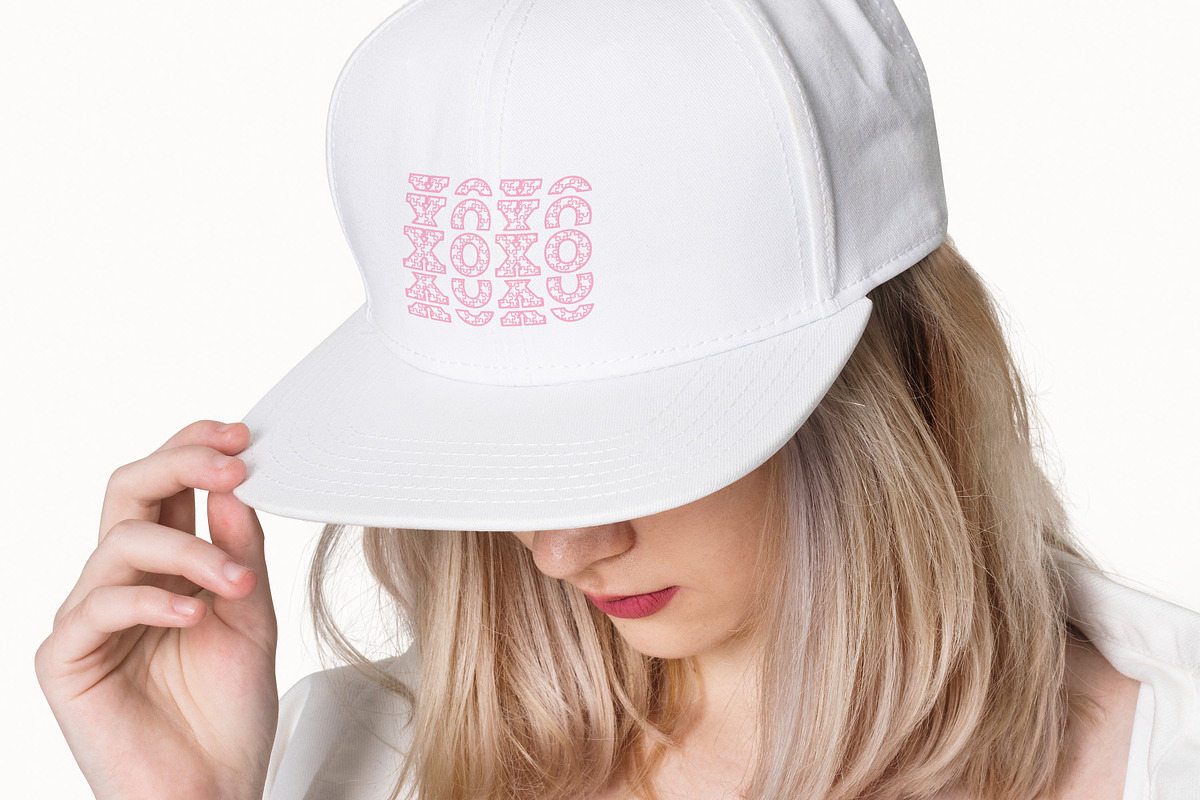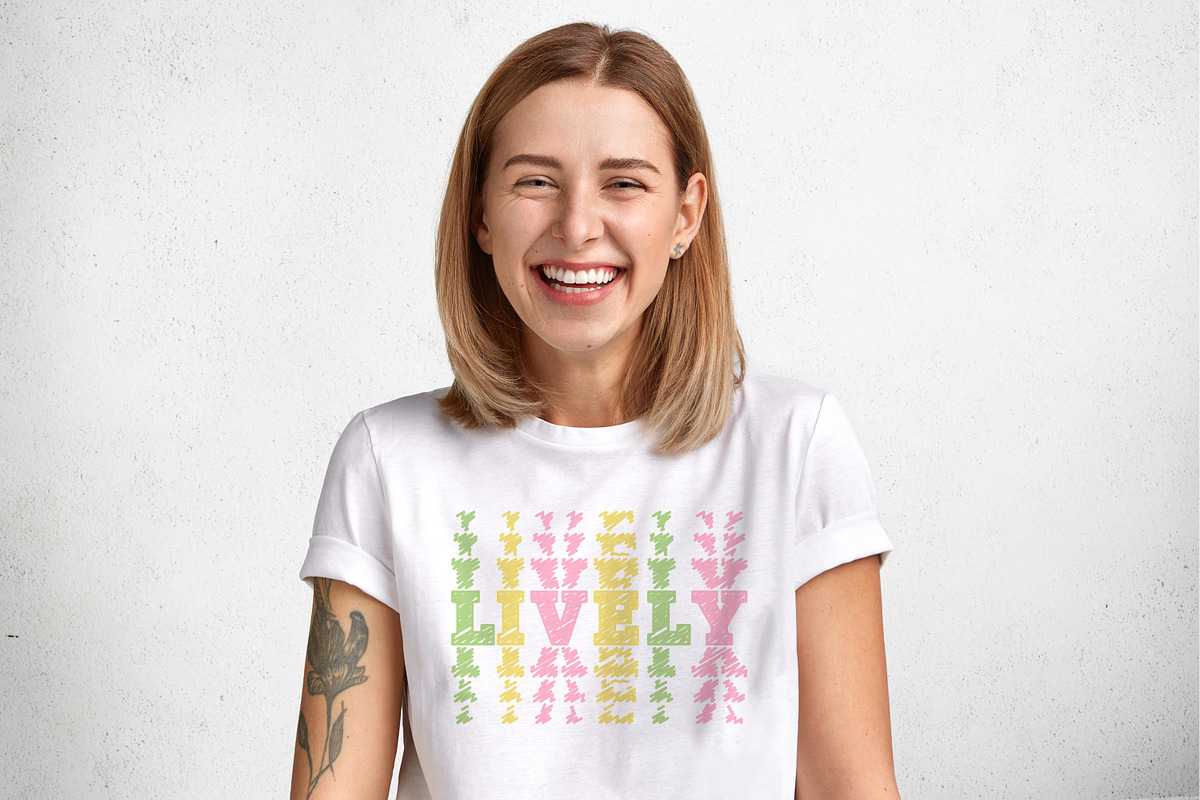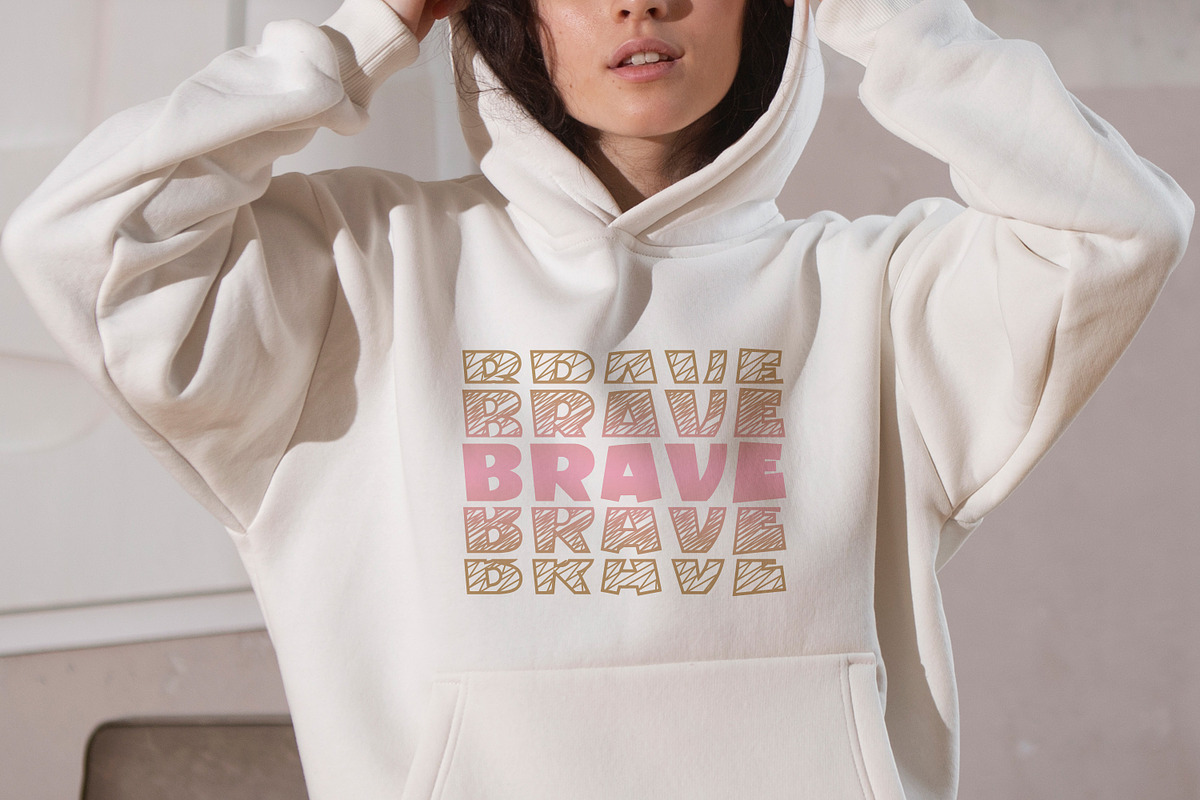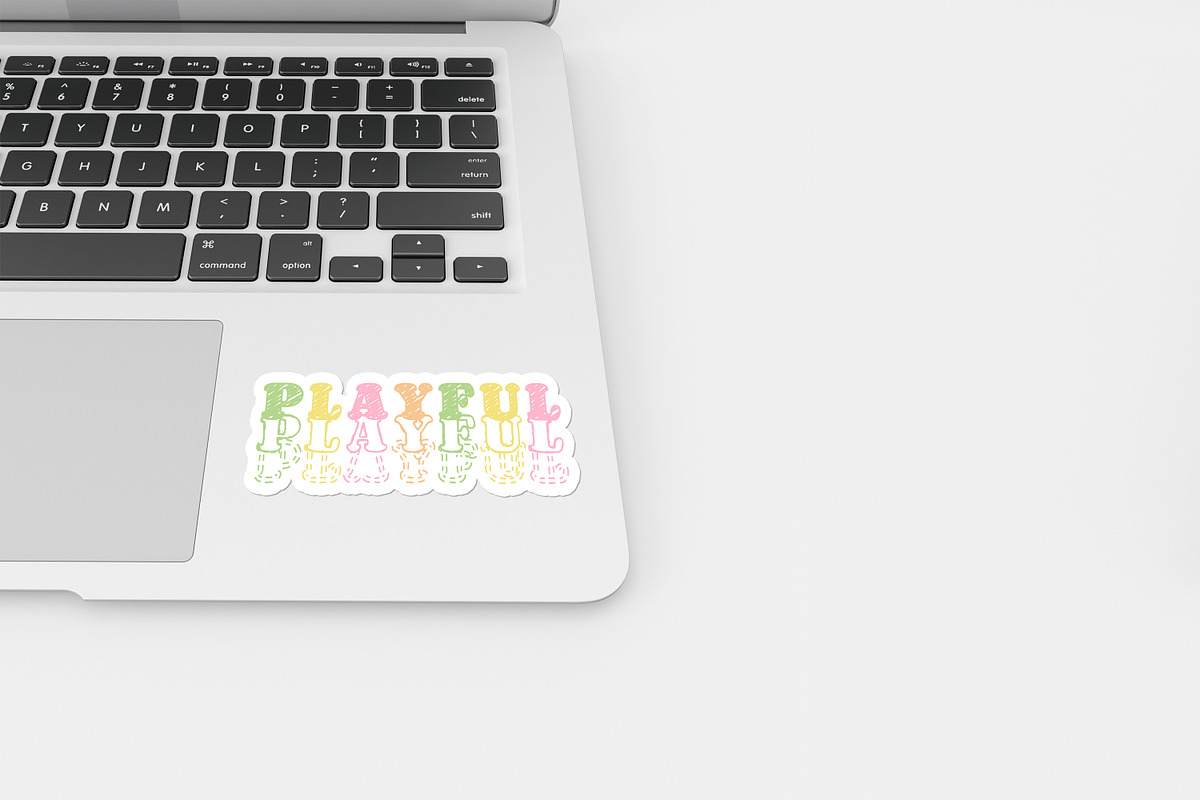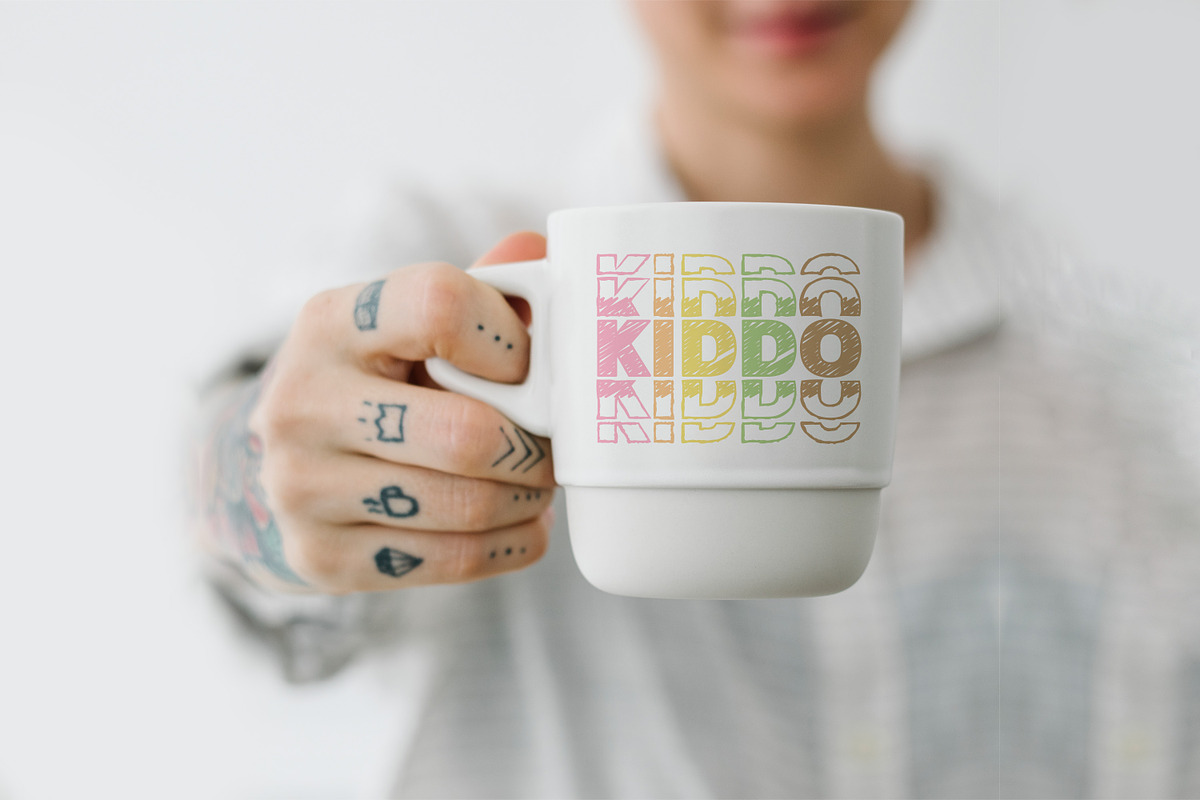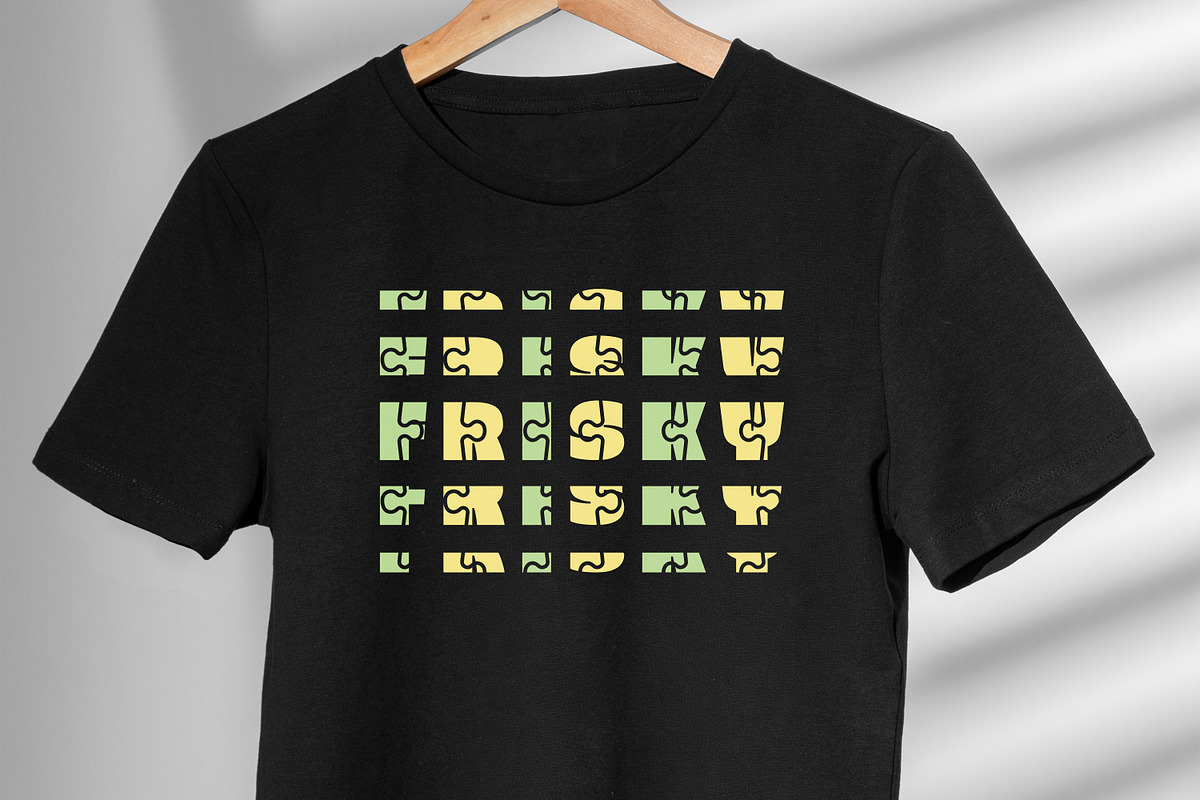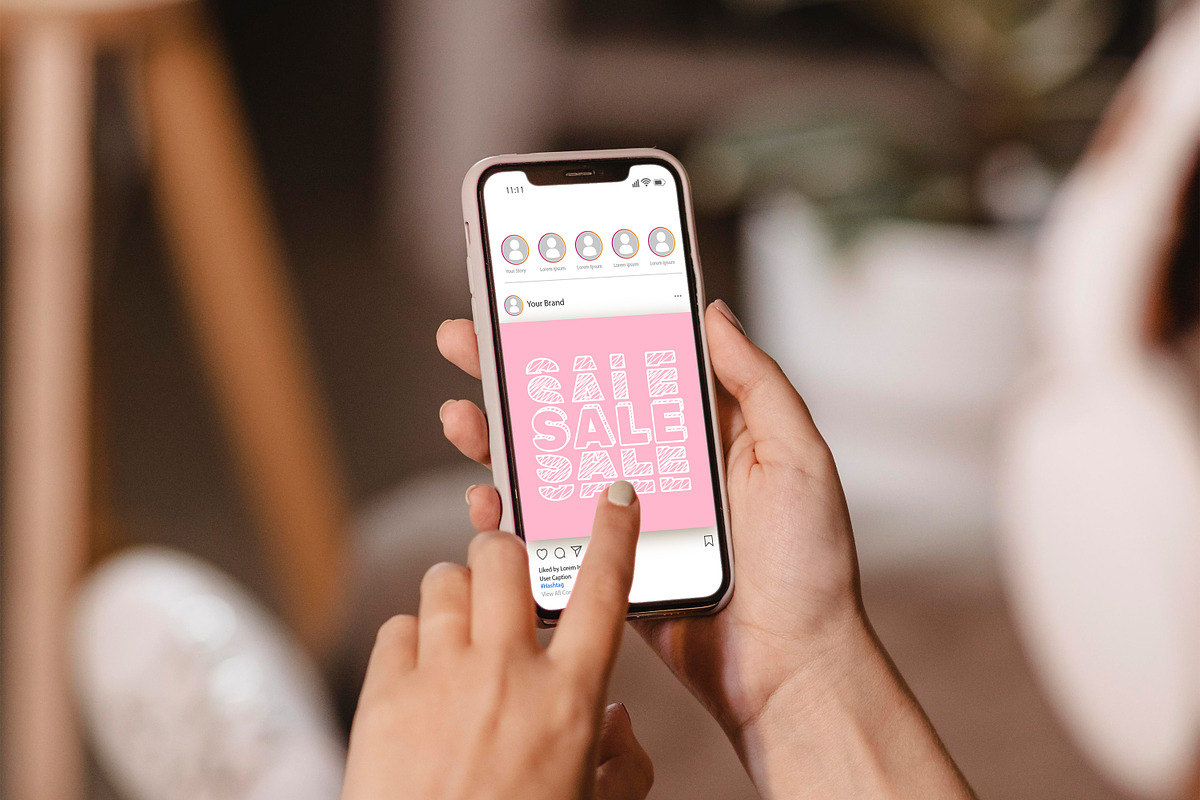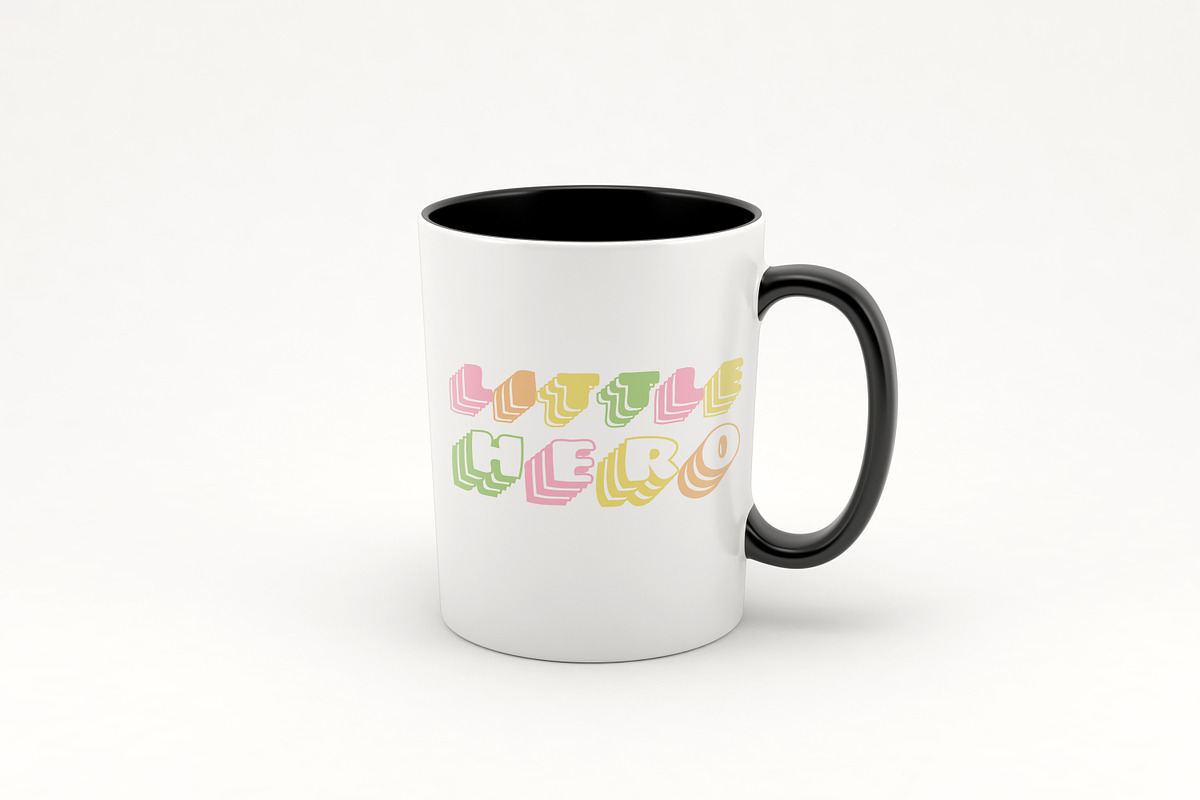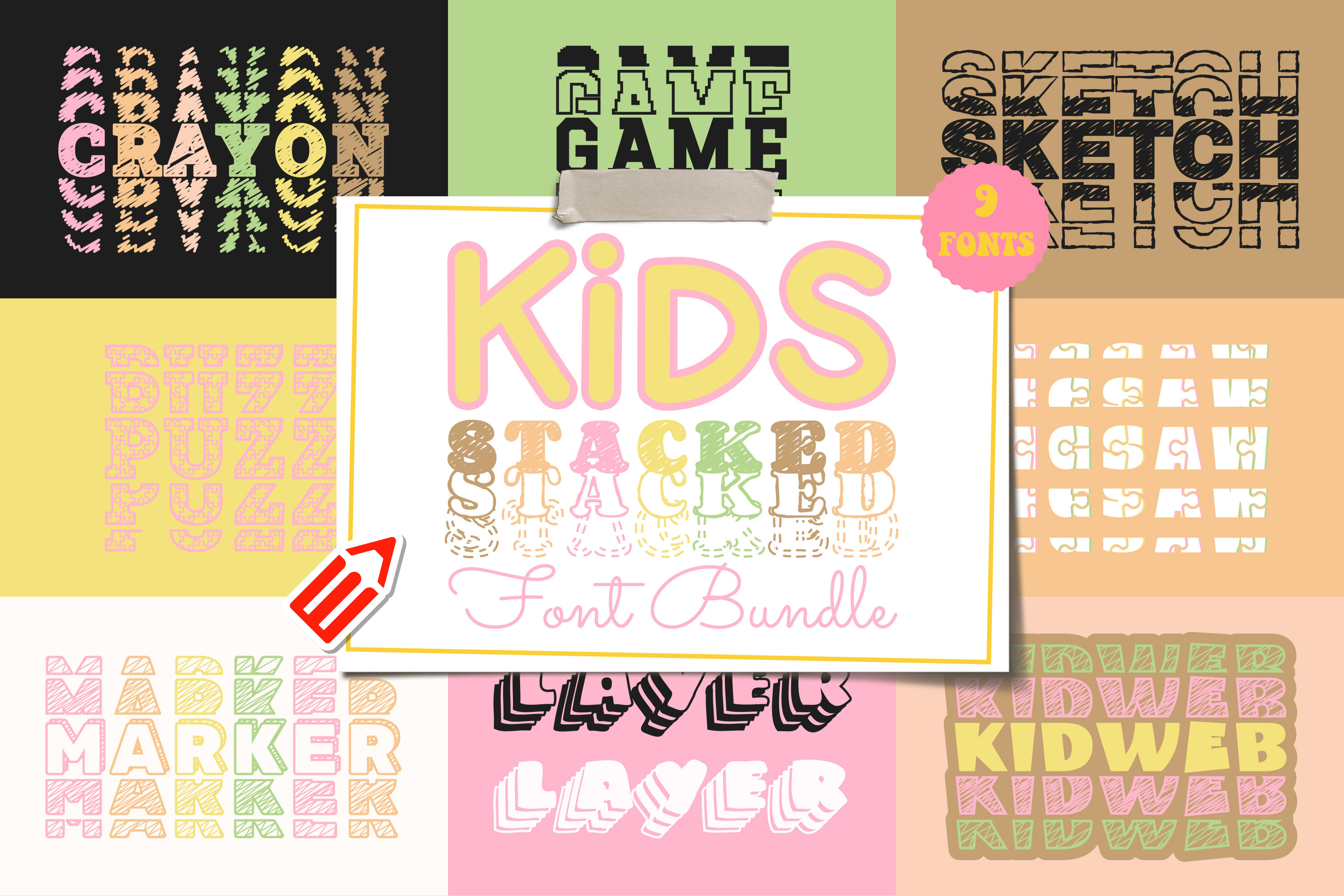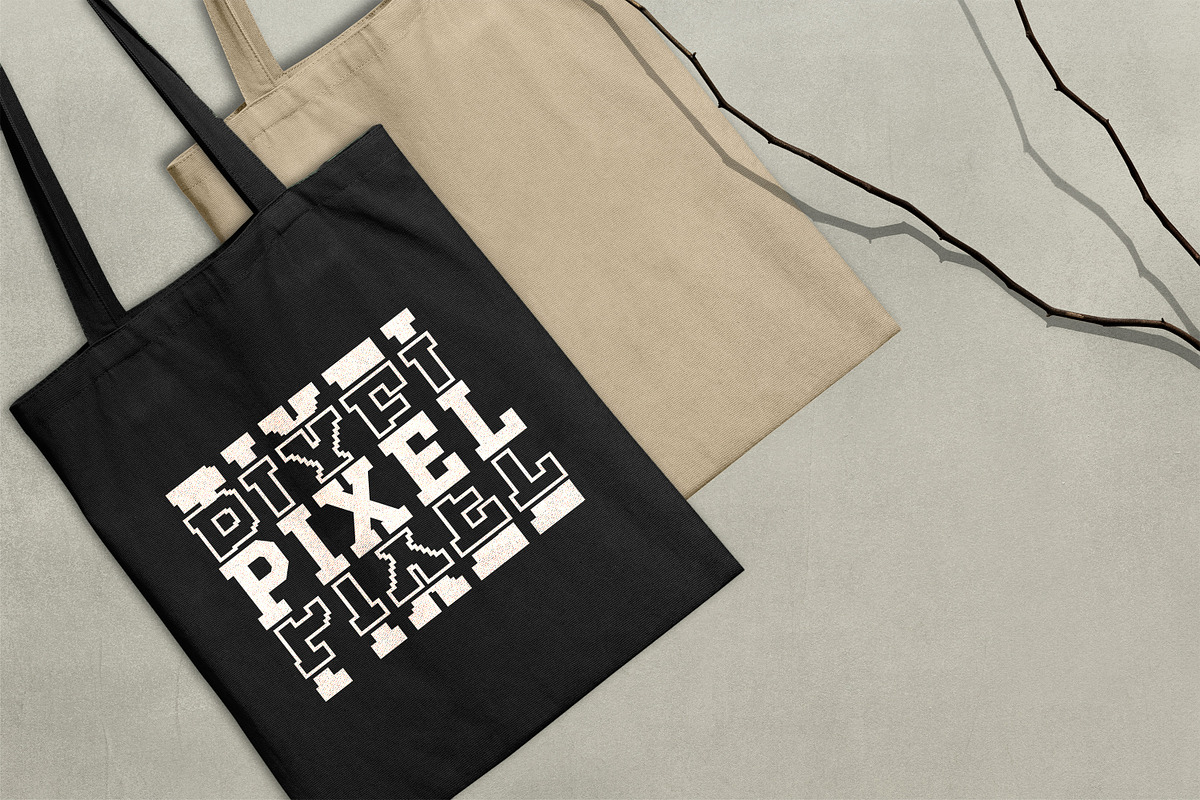
Kids Stacked Font Bundle
Kids Stacked Font Bundle is here with an incredible selection of 9 stacked fonts. A magical collection of fonts that will ignite the imagination of children everywhere! This delightful bundle is packed with Kids Fonts that are playful, fun, and perfect for all kinds of projects. From whimsical Children Fonts to vibrant and energetic Fun Fonts, this bundle has everything you need to bring your designs to life. Whether you're creating educational materials, crafting party invitations, or designing colorful posters, our Kids Stacked Font Bundle will add a touch of joy and wonder to every project. Let the school-friendly fonts and crayon-inspired lettering create a world of endless creativity for young minds. Get ready to embark on a delightful journey into the world of design with our Kids Stacked Font Bundle - where imagination knows no bounds!
Included in this pack: Chalky Crayon Game Jigsaw Kidweb Layer Marker Puzz Sketch